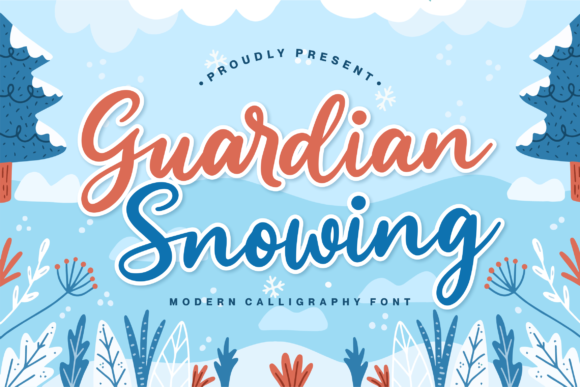
Welcome to the world of Guardian Snowing, a font that captures the essence of charm and elegance, designed to add a touch of magic to your creative endeavors. Let your imagination dance as you explore the endless possibilities of this script font, handcrafted with precision to bring life to your words.
Immerse yourself in the beauty of Guardian Snowing, a font that flows effortlessly like snowflakes in a tranquil winter scene. Perfectly suited for wedding invitations, thank-you cards, and quotes, its graceful curves and delicate details add a touch of sophistication to any design. Its versatility shines through as it complements logos, business cards, and every project that yearns for a personalized touch.
Step into a world of creativity with Guardian Snowing, where your ideas come to life with flair and elegance. With its ability to turn ordinary words into captivating art, this font inspires you to think outside the box and create designs that leave a lasting impression.
Don't settle for ordinary fonts that blend in with the crowd. Choose Guardian Snowing and embrace a world of charm, uniqueness, and sophistication. Allow your designs to stand out, captivating hearts and leaving an imprint that lingers in the minds of your audience.
Enhance your creative toolbox with Guardian Snowing, the font that ignites your passion for beauty and awakens your artistic soul. Let your creativity soar as you craft designs that exude elegance and charm, leaving a legacy of stunning visuals that tell a story.